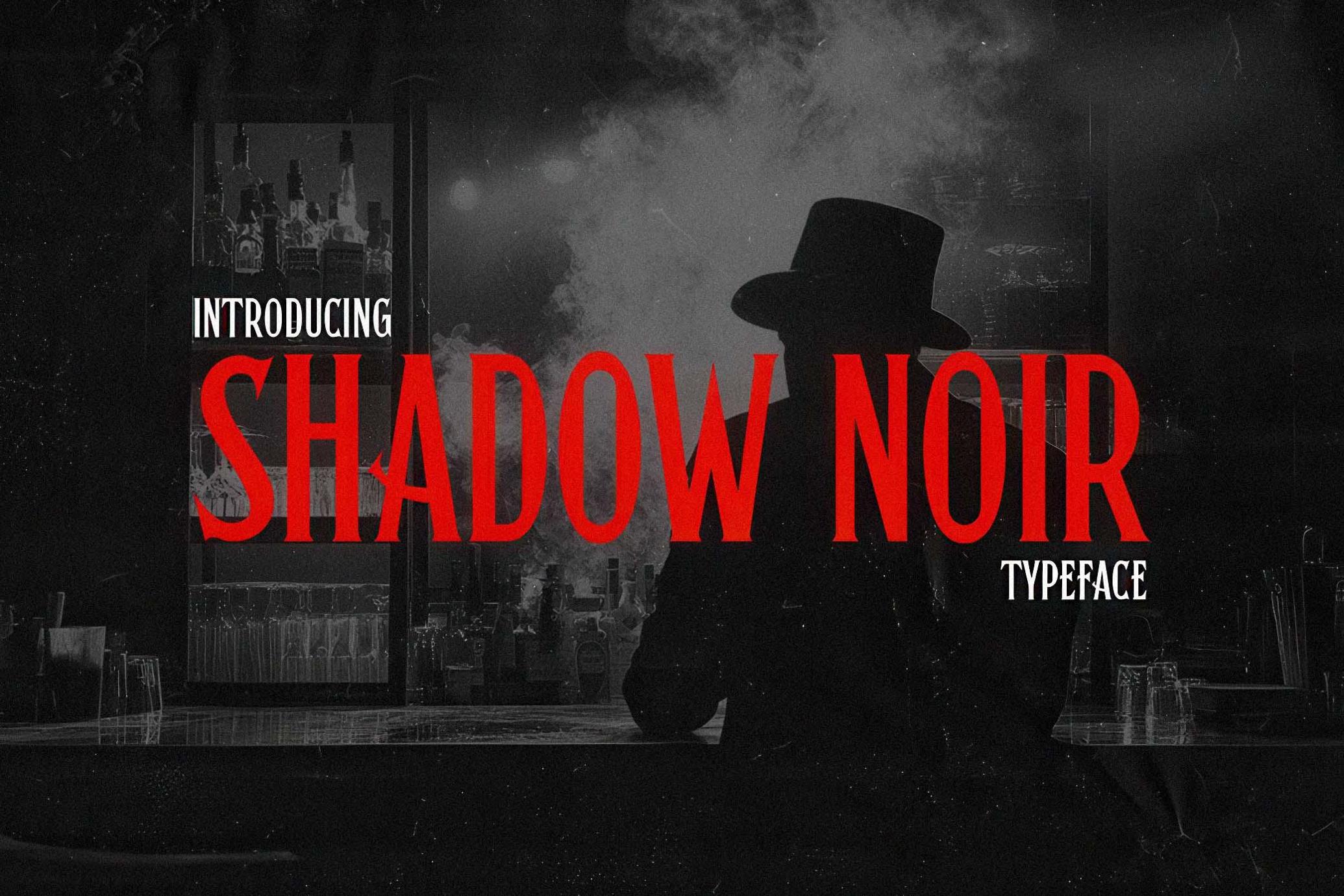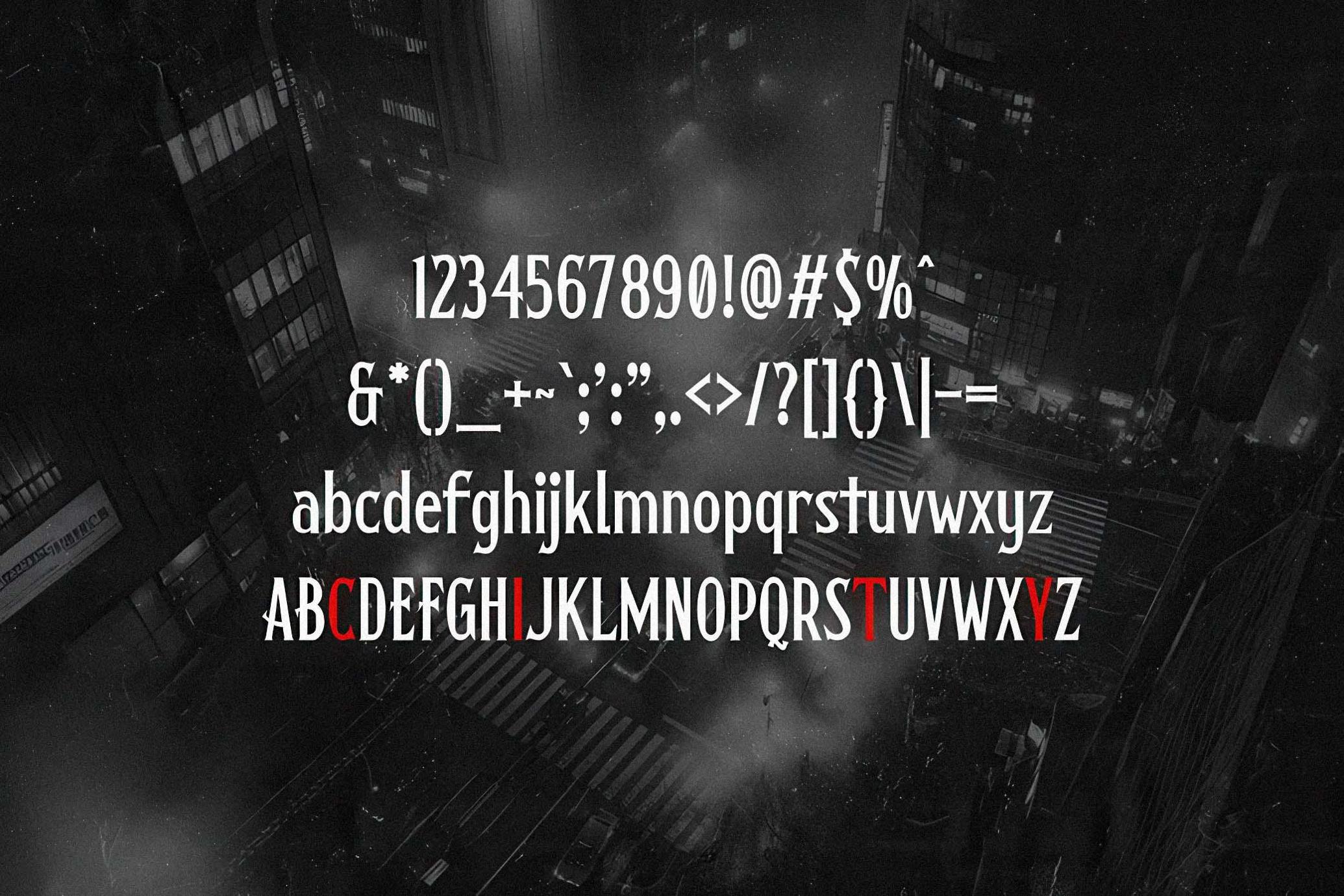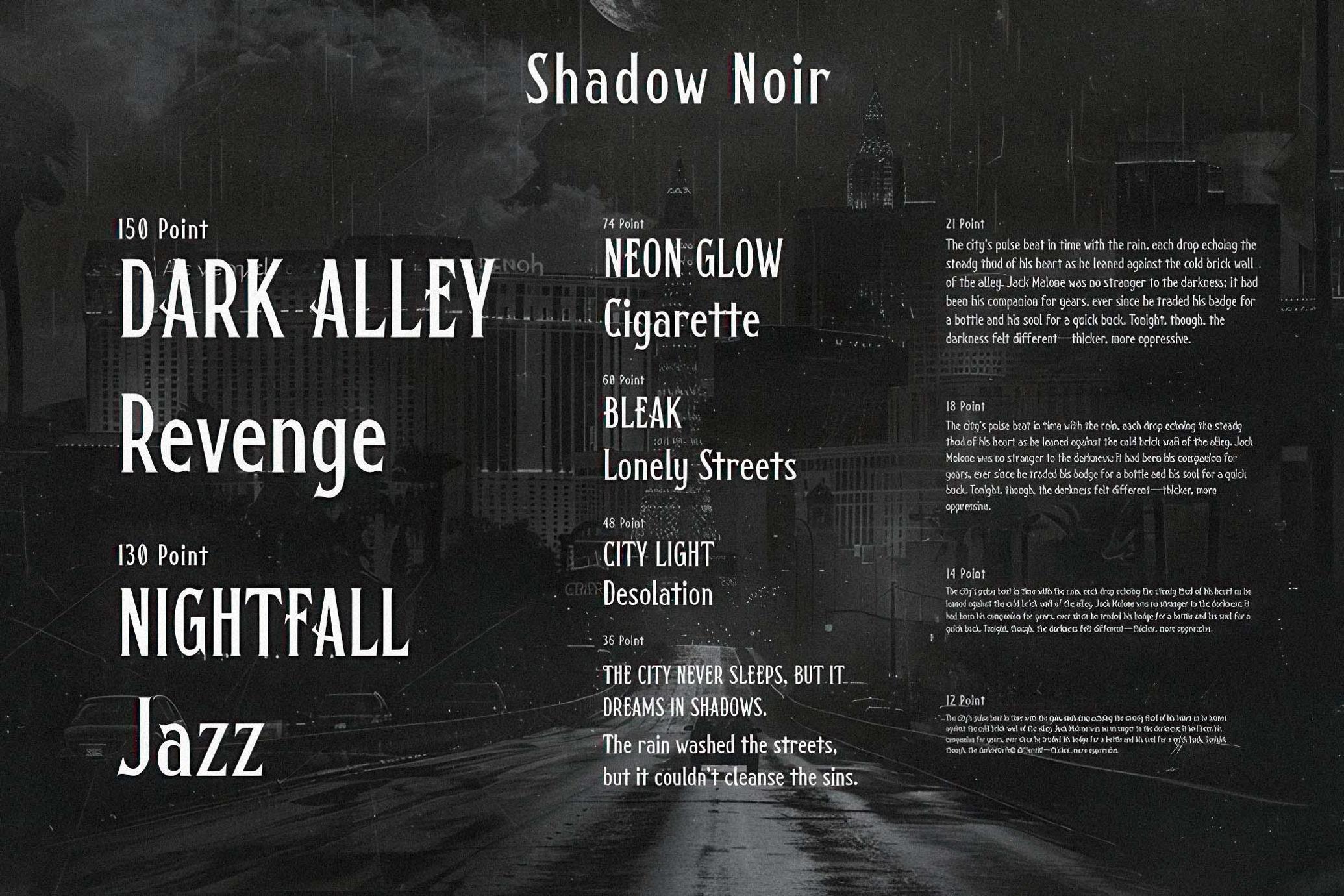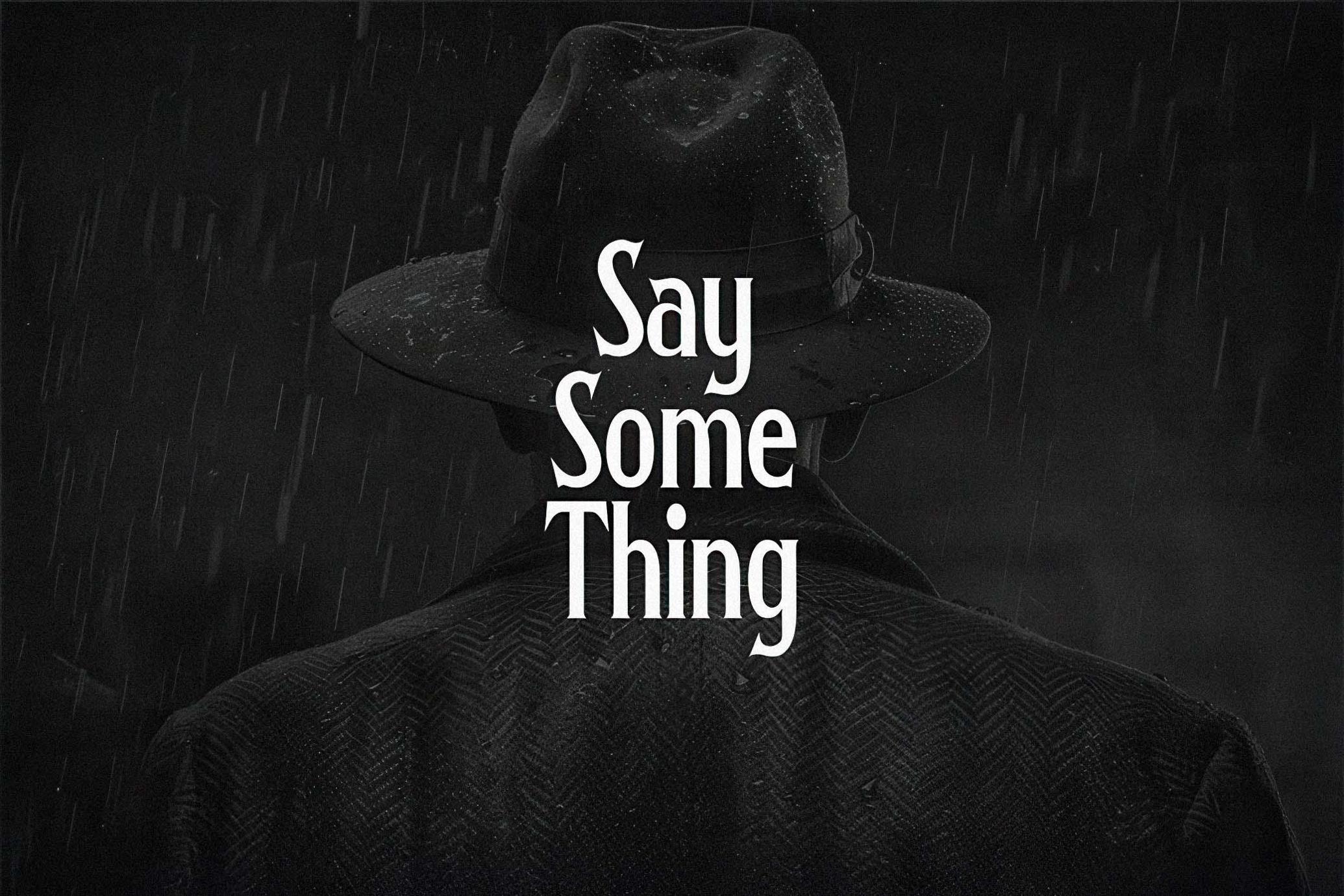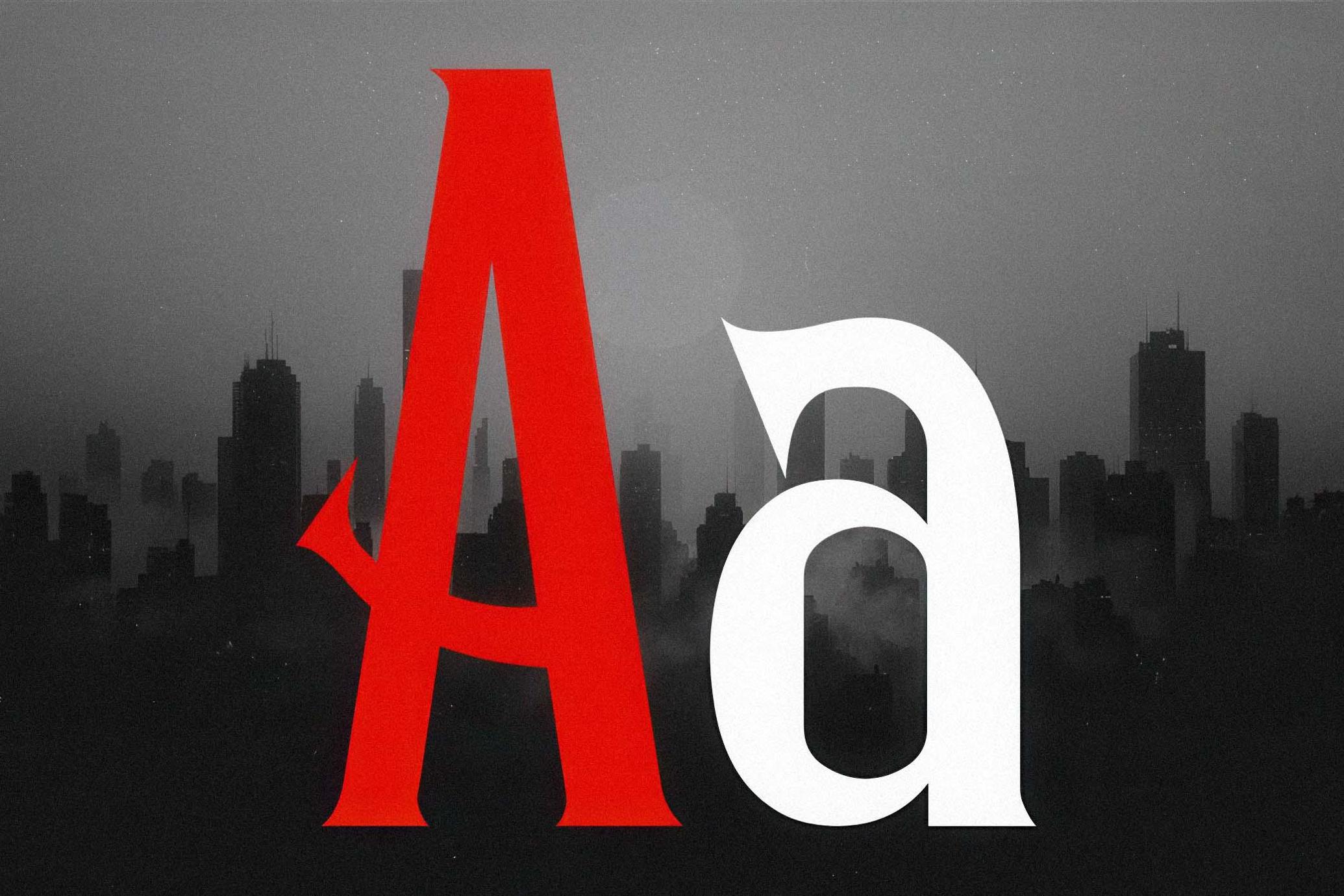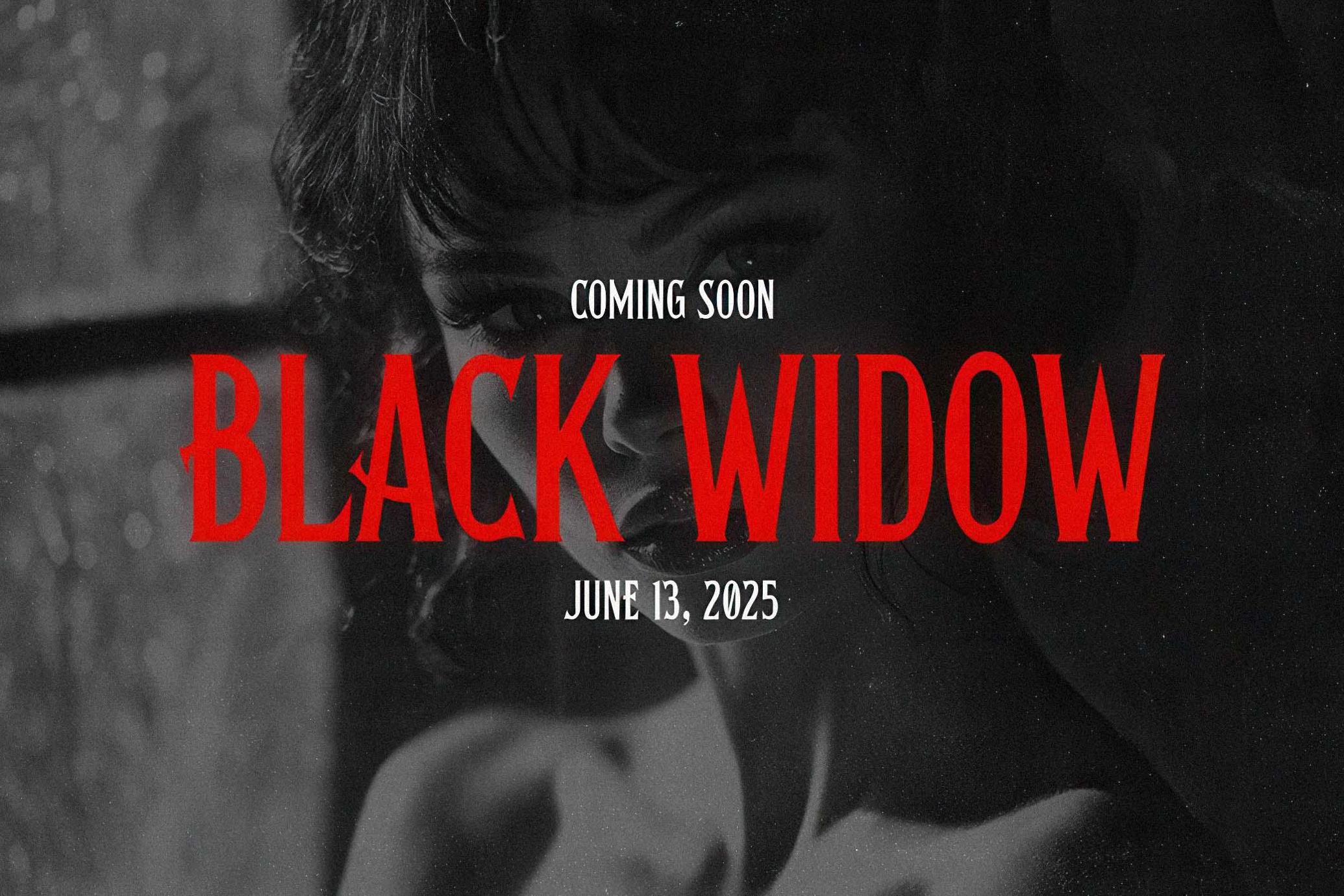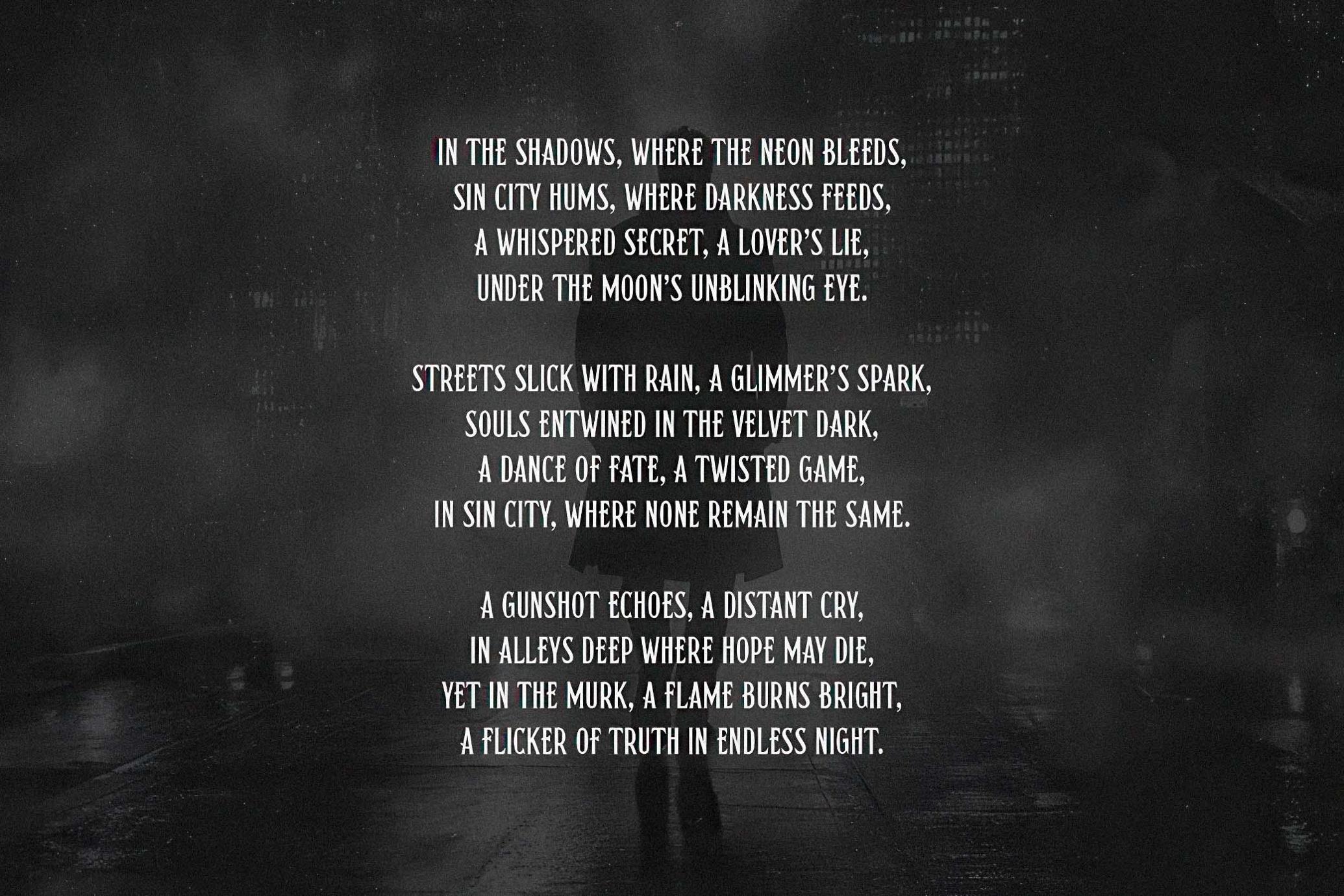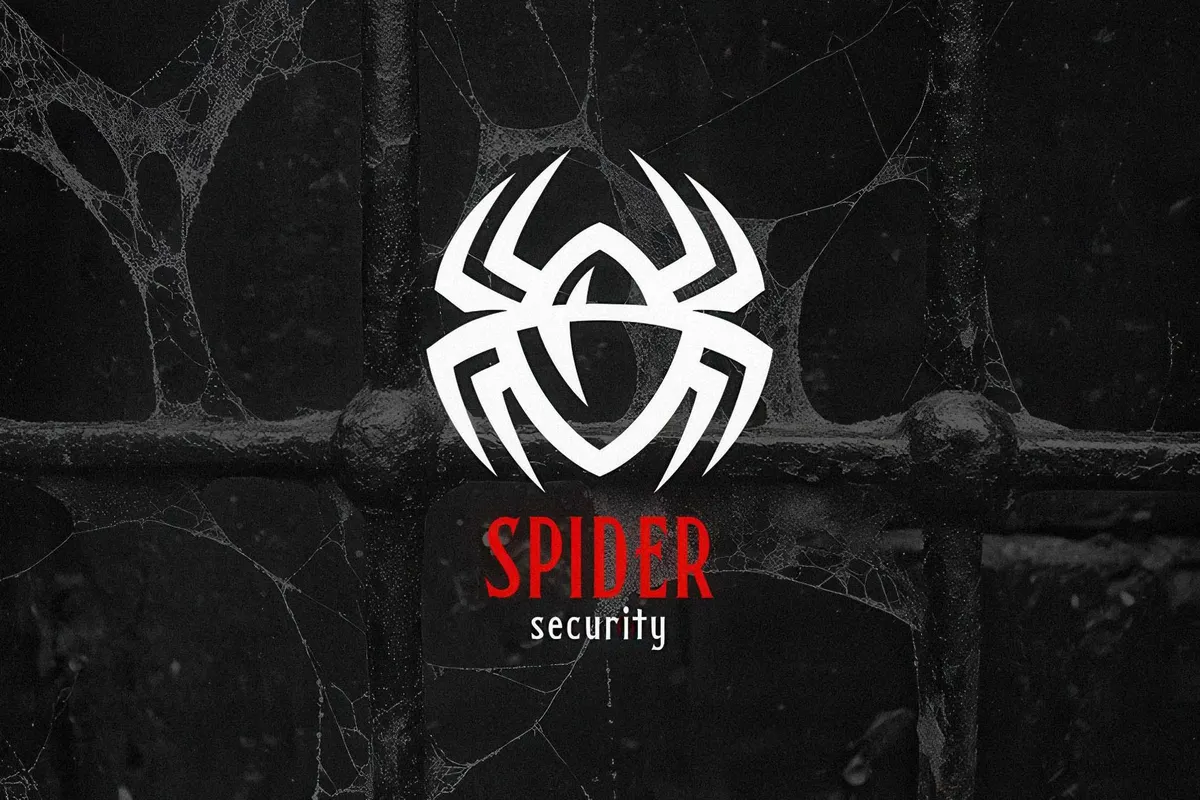
Shadow Noir Typeface
Introducing Shadow Noir, where elegance meets intrigue.
This sharp serif typeface is crafted for those who seek to make a bold statement with an air of mystery. With its razor-sharp lines and refined curves, Shadow Noir embodies sophistication with a hint of danger, perfect for projects that demand attention and leave a lasting impression.
Whether you're designing high-end branding, captivating book covers, or dramatic editorial layouts, Shadow Noir delivers a sense of depth and allure that draws the eye and stirs the imagination.
Step into the shadows and let your creativity shine with the enigmatic charm of Shadow Noir—where every letter tells a story of elegance and intrigue.